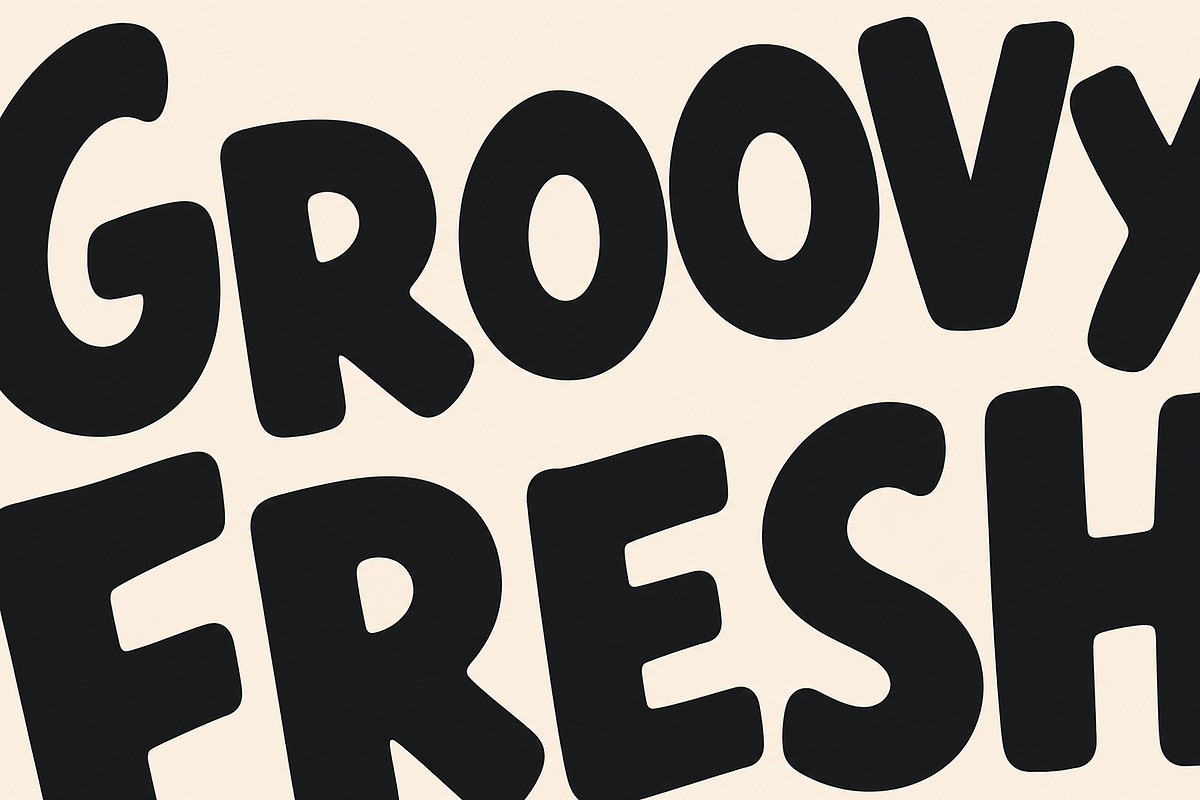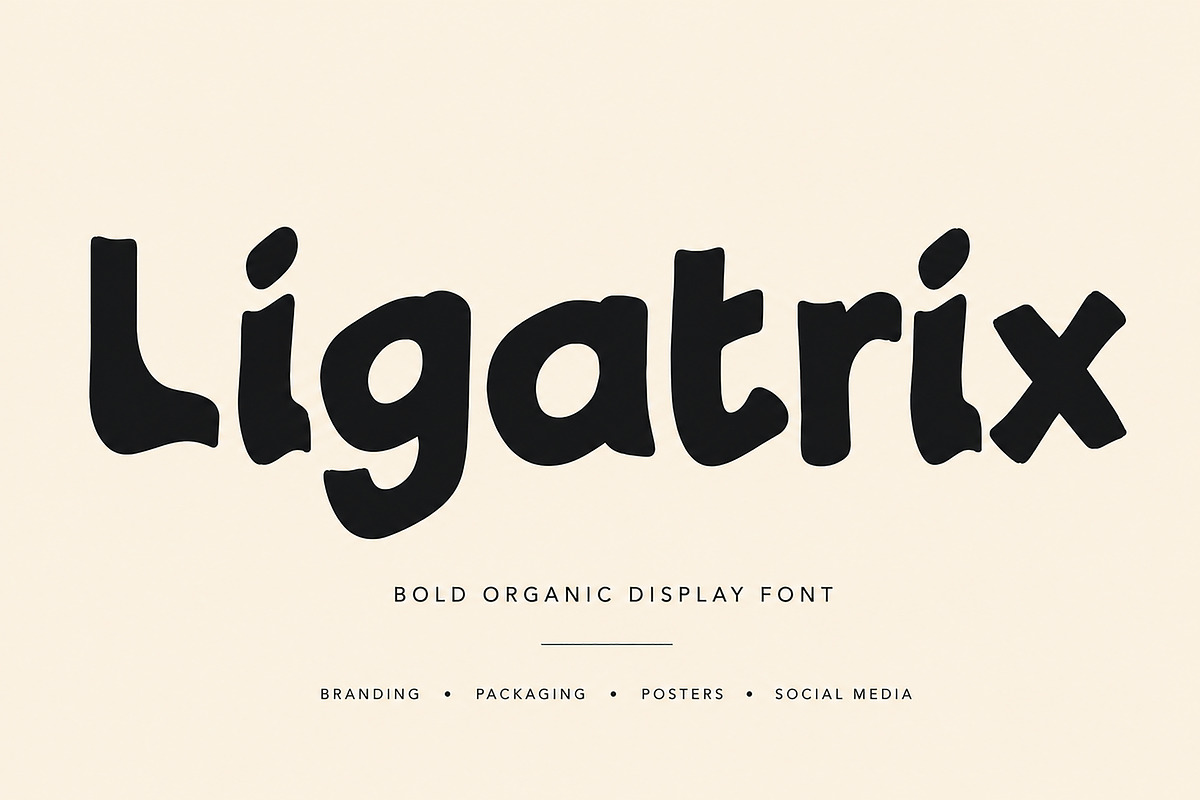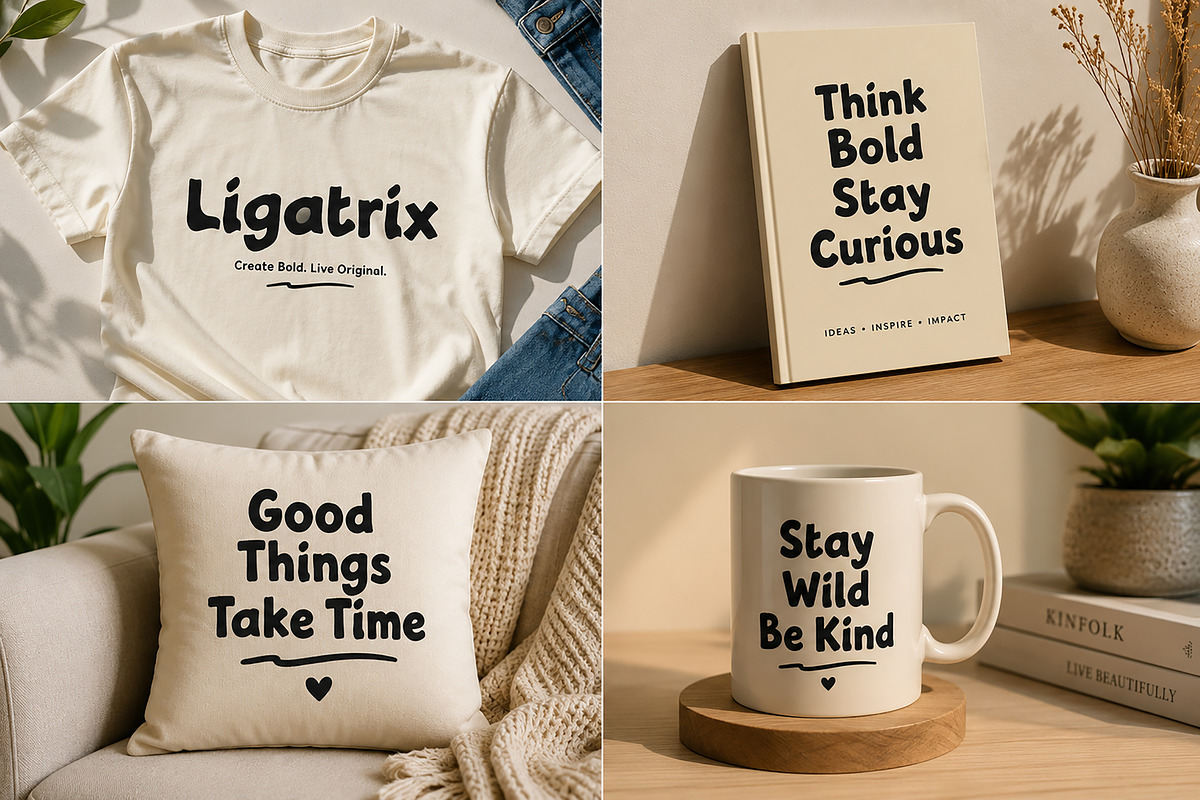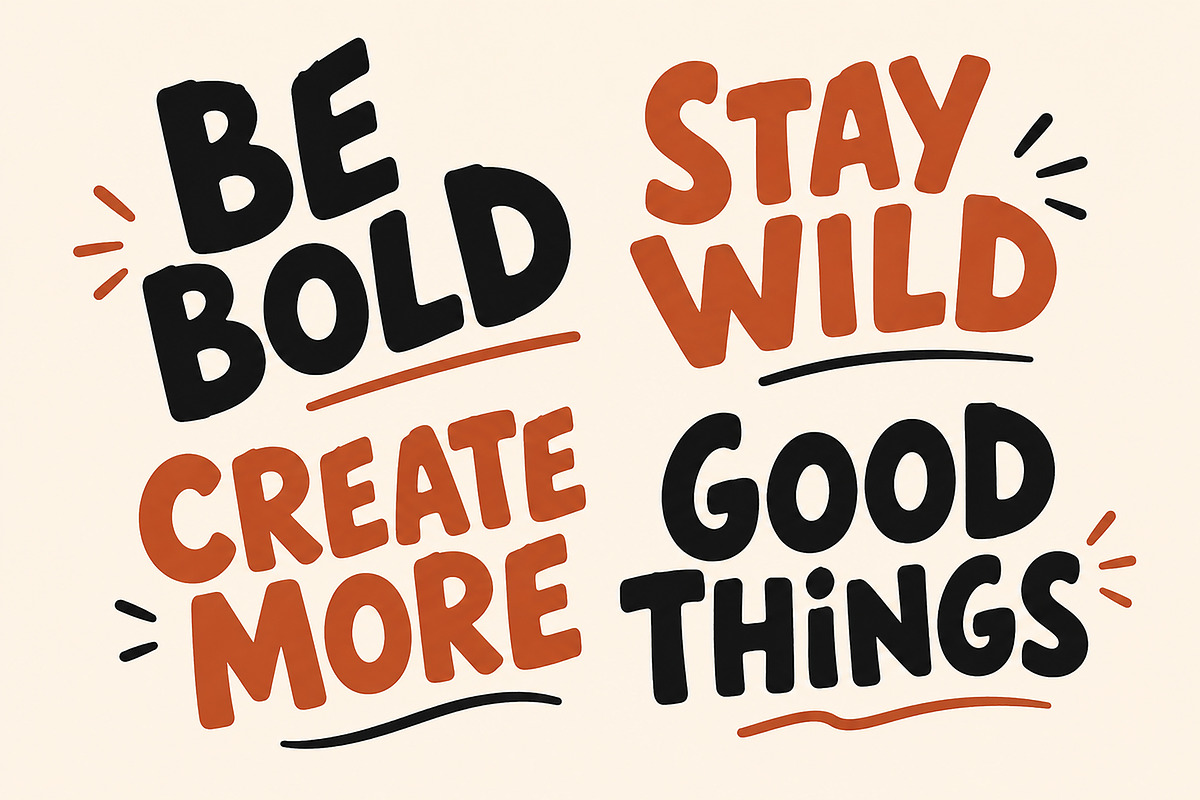
Ligatrix
Ligatrix – Bold Organic Display Font
Meet Ligatrix, a bold and playful display font crafted with chunky shapes, organic curves, and a unique handcrafted personality.
Ligatrix combines a fun, expressive character with a clean and confident look, making it perfect for designs that need to stand out. Its irregular rounded forms give your typography a friendly, creative, and memorable appearance while still maintaining a professional feel.
Whether you're creating eye-catching branding, statement posters, product packaging, apparel graphics, social media designs, or bold headlines, Ligatrix brings a distinctive personality to every project.
Logo & Branding
Posters & Headlines
T-Shirt & Apparel Design
Book & Magazine Covers
Advertising & Promotions
Labels & Stickers
Creative Editorial Design
Ligatrix includes:
Bold organic display style
Playful handcrafted character
Distinctive rounded letterforms
Strong and eye-catching appearance
Great for large display typography
Ligatrix is a bold organic display font featuring playful curves, chunky letterforms, and a handcrafted personality. Perfect for branding, packaging, posters, apparel, headlines, social media, and creative display designs.